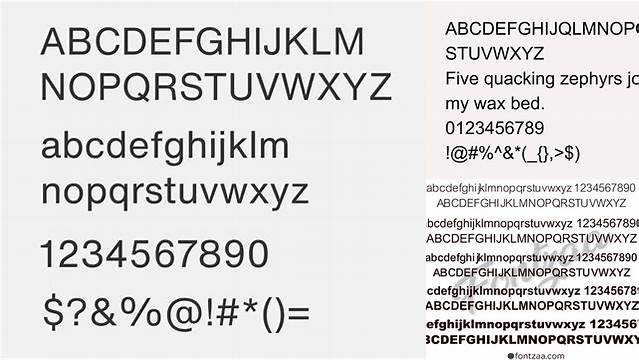
Arial Free Font: Download Guide & Uses
Introduction: Diving into the World of Arial
Hey guys! Are you looking for a clean, versatile, and highly readable font for your next project? Well, look no further! In this ultimate guide, we're diving deep into the world of Arial, one of the most popular and widely used fonts out there. We'll explore its history, its characteristics, and, most importantly, how you can get your hands on an Arial free font download. Arial has become a staple in the design world, renowned for its clarity and adaptability across various mediums, making it an invaluable asset for any creative endeavor. This font’s widespread adoption stems from its balanced design and remarkable legibility, suitable for everything from body text to headlines. Its universal appeal makes it an excellent choice for projects that demand a professional yet approachable aesthetic. The availability of Arial across different platforms and operating systems further cements its position as a go-to font for designers and non-designers alike. Whether you're working on a website, creating marketing materials, or designing a presentation, Arial's versatility ensures it will perform admirably in any context. So, let's get started and unlock the secrets of this iconic typeface! Understanding the nuances of Arial can significantly enhance your design work, ensuring that your message is conveyed clearly and effectively. Its straightforward letterforms and consistent spacing contribute to a seamless reading experience, making it ideal for lengthy documents and detailed reports. Furthermore, Arial’s compatibility with a wide range of software and applications means you can confidently use it without worrying about rendering issues or font substitutions. In the following sections, we'll delve deeper into the history and evolution of Arial, exploring its design principles and the various weights and styles available. By the end of this guide, you’ll have a comprehensive understanding of Arial and be well-equipped to use it in your projects.
What is Arial Font?
Arial is a sans-serif typeface that has become a cornerstone of modern typography. It's known for its clean lines, neutral appearance, and excellent readability, making it a fantastic choice for a wide range of applications. Arial’s design focuses on simplicity and clarity, which makes it exceptionally versatile for both digital and print media. Unlike fonts with more ornate details or distinctive quirks, Arial maintains a professional and unobtrusive presence, ensuring the content remains the focal point. This makes it particularly suitable for body text in documents, websites, and publications where readability is paramount. The font’s even strokes and balanced proportions contribute to a harmonious visual experience, reducing eye strain and enhancing comprehension. Moreover, Arial's extensive character set supports multiple languages, further broadening its usability in global communications. Its consistent performance across different browsers and operating systems also makes it a reliable choice for web design, where cross-platform compatibility is crucial. Whether you're crafting a formal business report or designing a user-friendly website, Arial's understated elegance and functionality make it an indispensable tool in your typographic arsenal. By choosing Arial, you ensure your message is delivered with clarity and professionalism, leaving a lasting impression on your audience. In summary, Arial is more than just a font; it's a reliable and versatile asset that enhances communication across a variety of contexts.
History and Evolution
The history of Arial is quite interesting! It was designed in 1982 by a team at Monotype Typography, led by Robin Nicholas and Patricia Saunders. The font was initially created to rival the popular Helvetica typeface, aiming to provide a more cost-effective alternative for IBM's laser printers. Arial's design was influenced by several sources, including Monotype Grotesque, but it also incorporated unique characteristics that set it apart. The font’s development was driven by the need for a typeface that could deliver high-quality text rendering on early laser printers, which had limited font storage capacity. This requirement led to a design that prioritized efficiency and legibility, resulting in the clean and streamlined forms we recognize today. Over the years, Arial has undergone several revisions and expansions to meet the evolving needs of the digital world. These updates have included the addition of new weights and styles, as well as support for a broader range of characters and languages. Arial's adoption as a standard font in Microsoft Windows further cemented its popularity and made it accessible to millions of users worldwide. Today, Arial remains one of the most widely used typefaces, prized for its versatility and reliability in a variety of applications. Its enduring presence in the design landscape is a testament to its timeless appeal and functional design. From its origins as a cost-effective alternative to Helvetica, Arial has grown into a typographic staple, consistently chosen for its clarity and adaptability.
Key Characteristics
Arial's key characteristics include its clean, sans-serif design, uniform stroke weight, and diagonal terminals. These elements contribute to its neutral and legible appearance, making it suitable for a wide range of applications. The absence of serifs gives Arial a modern and minimalist look, while the consistent stroke weight ensures a balanced and even texture across the page or screen. Diagonal terminals, where the strokes end at an angle rather than horizontally, add a subtle touch of dynamism to the letterforms, enhancing their visual appeal. These design features collectively contribute to Arial's exceptional readability, making it an excellent choice for body text in books, articles, and websites. The font’s clear and straightforward letterforms minimize ambiguity, reducing the risk of misinterpretation and improving overall comprehension. Moreover, Arial’s neutral aesthetic allows it to blend seamlessly with various design styles, from corporate to creative. This versatility makes it a valuable asset for designers working on diverse projects, ensuring a cohesive and professional look. In addition to its aesthetic qualities, Arial’s technical attributes also contribute to its widespread adoption. Its compatibility with numerous platforms and software applications means designers can rely on consistent rendering, regardless of the environment. This reliability, combined with its legibility and versatility, makes Arial a cornerstone of modern typography, consistently chosen for its functional elegance.
Arial vs. Helvetica
A common question is, what's the difference between Arial and Helvetica? While they look similar at first glance, there are some key differences. Helvetica, designed in 1957 by Max Miedinger, has a more geometric and structured appearance, while Arial has slightly softer curves and angled stroke endings. Many designers consider Helvetica to be more refined and aesthetically pleasing, but Arial is often preferred for its better on-screen readability. One of the most noticeable differences between Arial and Helvetica is the shape of the uppercase 'G'. In Helvetica, the spur (the small horizontal stroke) extends further to the right, while in Arial, it's more truncated. The lowercase 'a' is another distinguishing feature; Helvetica's 'a' has a more pronounced tail, while Arial's 'a' is simpler and more rounded. These subtle variations contribute to the overall feel of each typeface. Helvetica is often perceived as more authoritative and formal, while Arial has a slightly more approachable and contemporary look. However, in terms of functionality, both fonts perform admirably in a variety of applications. Both typefaces are highly legible and versatile, making them suitable for everything from body text to headlines. The choice between Arial and Helvetica often comes down to personal preference and the specific requirements of the project. While Helvetica is revered for its classic and timeless design, Arial offers a more cost-effective alternative with excellent readability. Ultimately, both fonts are valuable tools in the typographer's toolkit, each with its own strengths and nuances. Understanding these differences can help designers make informed decisions about which typeface best suits their needs.
Why Use Arial?
There are many reasons why Arial is such a popular font. First and foremost, it's incredibly legible, making it a great choice for body text, websites, and documents. Its clean design ensures that the text remains readable even at small sizes. Arial's widespread adoption is also due to its availability on most operating systems and software platforms, ensuring consistent rendering across different devices. This cross-platform compatibility is a significant advantage for designers and businesses that need to maintain a uniform brand identity. Whether you're designing a website, creating a brochure, or writing a report, you can be confident that Arial will display correctly on virtually any device. In addition to its legibility and compatibility, Arial’s versatility is another key reason for its popularity. Its neutral appearance allows it to work well in a variety of contexts, from formal business communications to creative marketing materials. The font's clean lines and balanced proportions make it a reliable choice for any project that requires a professional and polished look. Furthermore, Arial's extensive character set supports multiple languages, making it a valuable asset for global communications. This comprehensive language support ensures that your message is conveyed accurately and effectively, regardless of the audience. In summary, Arial is a dependable and adaptable typeface that offers a blend of legibility, compatibility, and versatility. Its widespread use is a testament to its functional elegance and enduring appeal, making it a staple in the world of typography.
Versatility in Design
Arial's versatility is one of its strongest suits. It works well in a variety of design contexts, from corporate documents to website headers. Its neutral and unobtrusive design allows it to blend seamlessly with different styles and aesthetics. Whether you're designing a logo, creating a presentation, or laying out a magazine, Arial can adapt to the project's specific needs. Its clean and straightforward letterforms ensure readability, while its balanced proportions contribute to a harmonious visual experience. Arial's ability to perform well in both print and digital media further enhances its versatility. It renders clearly on screens and prints crisply on paper, making it a reliable choice for any project. The font's adaptability also extends to its use in different weights and styles. From light to bold, Arial offers a range of options that can be used to create visual hierarchy and emphasis within a design. Its italic and condensed versions provide additional flexibility, allowing designers to fine-tune the appearance of their text. Moreover, Arial’s compatibility with a wide range of software applications makes it an accessible and convenient choice for designers of all levels. Its presence in standard font libraries means you can use it without worrying about licensing issues or font substitutions. In essence, Arial’s versatility makes it a valuable tool for any designer seeking a reliable and adaptable typeface. Its ability to perform well in diverse contexts ensures that your message is conveyed clearly and effectively, regardless of the design style or medium.
Readability and Legibility
Readability and legibility are crucial aspects of any typeface, and Arial excels in both. Its clean lines, uniform stroke weight, and open letterforms make it easy to read, even at small sizes. Legibility refers to the clarity of individual characters, while readability pertains to how easily the text flows within a larger context. Arial's design prioritizes both of these elements, ensuring a comfortable reading experience for the audience. The font’s consistent stroke weight and balanced proportions contribute to a uniform texture on the page or screen, reducing eye strain and enhancing comprehension. Its open letterforms prevent overcrowding and maintain clear distinctions between characters, even in dense blocks of text. These features make Arial an excellent choice for body text in books, articles, and websites, where sustained reading is required. In addition to its inherent design qualities, Arial’s widespread use and familiarity also contribute to its readability. Because it is so commonly used, readers are accustomed to its appearance, which further reduces the cognitive load associated with reading. This familiarity can be particularly beneficial in situations where clarity and efficiency are paramount, such as in technical documentation or instructional materials. Overall, Arial's commitment to readability and legibility makes it a dependable and effective typeface for conveying information clearly and concisely. Its design fosters a smooth and engaging reading experience, ensuring that your message is received and understood by your audience.
Cross-Platform Compatibility
Arial's cross-platform compatibility is another significant advantage. It's a standard font on both Windows and macOS systems, ensuring consistent rendering across different devices and operating systems. This is a huge plus for designers who need to create materials that will be viewed on a variety of platforms. The consistency that Arial provides ensures that your design will look as intended, regardless of the viewer’s device or operating system. This reliability is crucial for maintaining brand integrity and ensuring that your message is delivered accurately. In a world where content is consumed on a multitude of devices, Arial's cross-platform compatibility offers peace of mind. You can confidently use Arial in your projects, knowing that it will display correctly for the vast majority of users. This broad compatibility also simplifies the design process, as you don't need to worry about font substitutions or rendering issues. Arial's ubiquitous presence across different platforms makes it a safe and practical choice for any project. Whether you're designing a website, creating a presentation, or laying out a document, Arial's consistent performance ensures a professional and polished look. Its reliability and widespread availability make it an indispensable tool for designers and communicators alike.
Conclusion: Arial - A Timeless Classic
So, there you have it! Arial is a timeless classic for a reason. Its versatility, legibility, and widespread availability make it a go-to choice for designers and everyday users alike. Whether you're crafting a professional document or designing a website, Arial is a reliable font that delivers consistent results. While the allure of fancier or more unique fonts can be tempting, Arial’s enduring appeal lies in its simplicity and functionality. Its ability to perform well in diverse contexts makes it a valuable asset for any project that requires clear and effective communication. From its origins as a cost-effective alternative to Helvetica, Arial has evolved into a typographic staple, consistently chosen for its understated elegance and adaptability. Its clean lines and balanced proportions contribute to a seamless reading experience, making it ideal for lengthy documents and detailed reports. Moreover, Arial's compatibility with a wide range of software and applications means you can confidently use it without worrying about rendering issues or font substitutions. In a world where visual communication is paramount, Arial’s dependability and widespread use ensure that your message is received and understood by your audience. Its straightforward letterforms and consistent spacing minimize ambiguity, reducing the risk of misinterpretation and improving overall comprehension. As we’ve explored in this guide, Arial’s versatility extends beyond its design attributes to its ease of use and accessibility. Whether you’re a seasoned designer or a casual user, Arial’s presence on most operating systems and software platforms makes it a convenient and reliable choice. Its cross-platform compatibility ensures that your designs will look as intended, regardless of the viewer’s device or operating system. In conclusion, Arial is more than just a font; it's a testament to the power of simplicity and functionality in design. Its enduring popularity and widespread use underscore its value as a typographic tool that enhances communication across a variety of contexts. So, the next time you're faced with a design challenge, remember the reliability and versatility of Arial – a timeless classic that continues to serve us well.